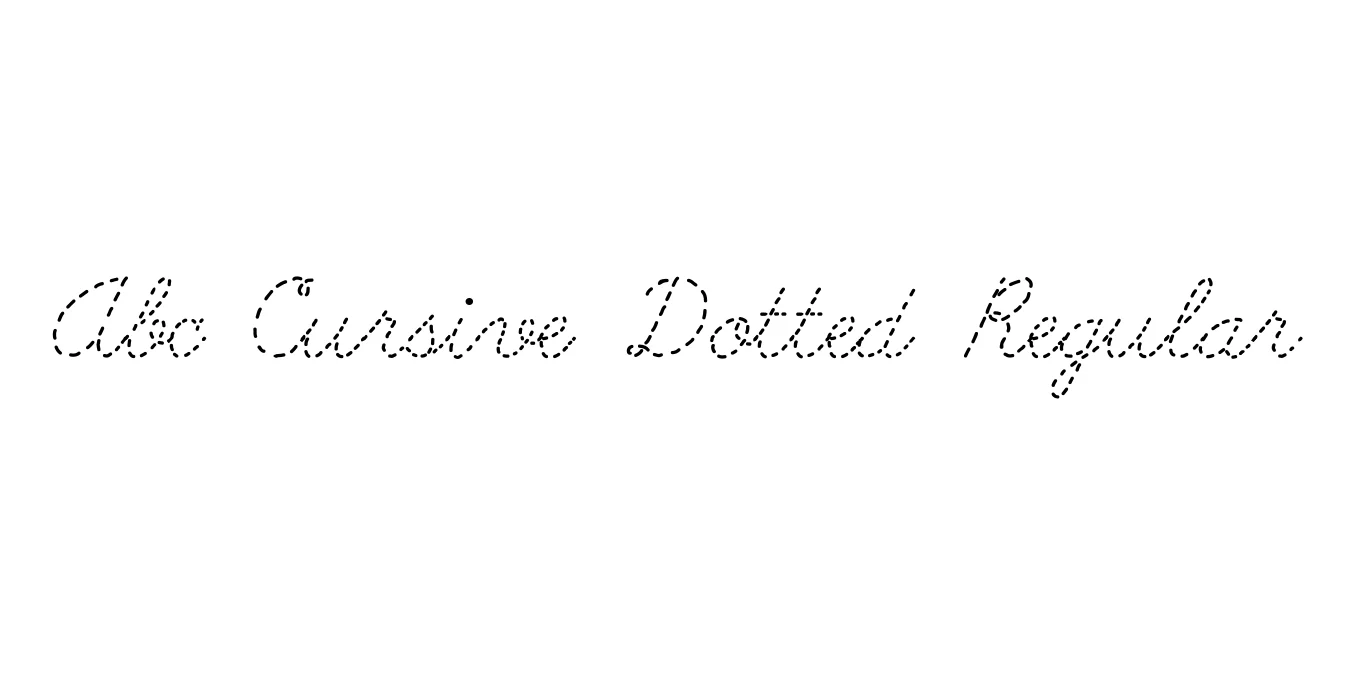
Abc Cursive Dotted Regular
Designed by Volápia
| Category | Script / Educational |
| Designer | Volápia |
Abc Cursive Dotted Regular is an essential educational typeface specifically engineered to assist in the development of cursive writing skills for young students. By utilizing a clear, dotted path for each character, this font provides an intuitive roadmap for children to follow as they learn the complex loops and connections inherent in script penmanship. It is widely recognized for its pedagogical value in classrooms, helping to bridge the gap between letter recognition and the physical act of writing.
The design of this font adheres to traditional cursive standards, ensuring that learners develop a consistent and legible handwriting style. Each character is meticulously crafted to maintain optimal spacing and alignment, which is crucial for early learners practicing their fine motor skills. Abc Cursive Dotted Regular is a versatile tool for educators and parents alike, making the creation of custom, high-quality tracing worksheets efficient and effective.
Abc Cursive Dotted Regular Best Uses
Creating tracing guides and penmanship worksheets for students.
Providing daily handwriting practice materials for early learners.
Designing instructional workbooks for primary education.